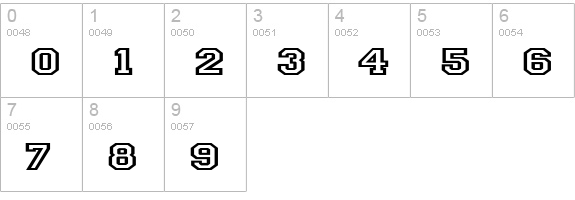
IvyLeagueExtendedOutline Font Details
IvyLeagueExtendedOutline is a stunning font that exudes elegance and sophistication. With its extended outline design, it adds a touch of modernity to any project, making it perfect for a variety of creative endeavors. This font is meticulously crafted to capture attention and make a lasting impression. What sets IvyLeagueExtendedOutline apart is not just its impeccable design, but also the fact that it is available for free. Yes, you read that right! This magnificent font can be downloaded at absolutely no cost on FontsMarket.com. Now you can enhance your designs without breaking the bank. Whether you're working on a professional presentation, a stylish logo, or a captivating poster, IvyLeagueExtendedOutline will surely elevate your project to new heights. Its clean lines and refined curves give it a timeless appeal that can effortlessly adapt to any design concept. With IvyLeagueExtendedOutline, you have the freedom to unleash your creativity without any limitations. This font provides the versatility that designers crave, allowing you to experiment and create unique compositions that stand out from the crowd. So why wait? Download IvyLeagueExtendedOutline now from FontsMarket.com and discover the endless possibilities it brings to your design endeavors. Embrace this extraordinary font and let it become an essential tool in your creative arsenal.